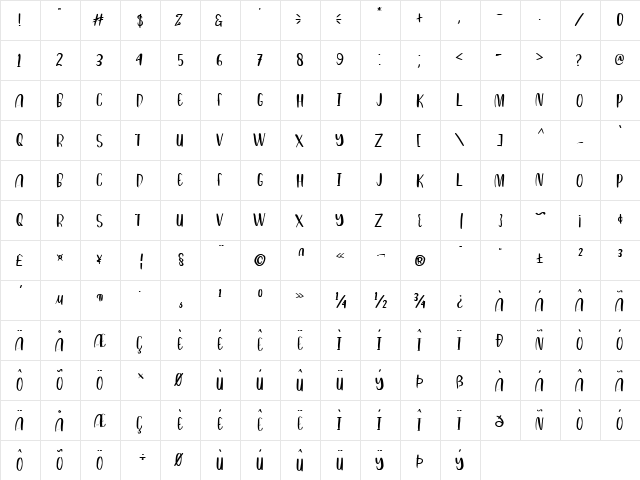
Winter Forest Regular
Winter Forest is a composed and adaptable typeface that performs quietly and consistently across a wide range of design contexts.